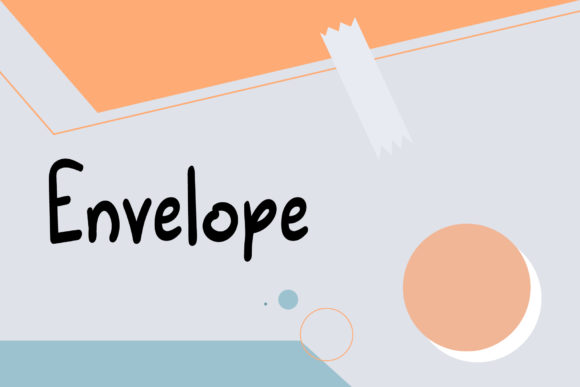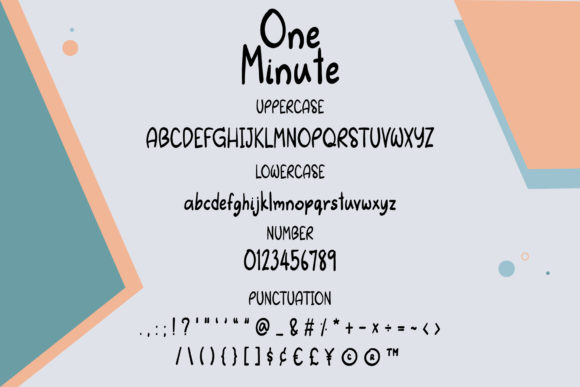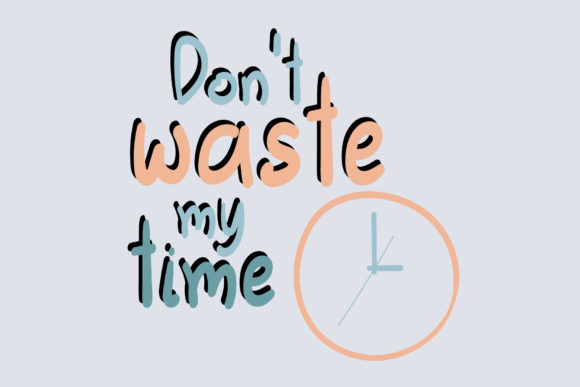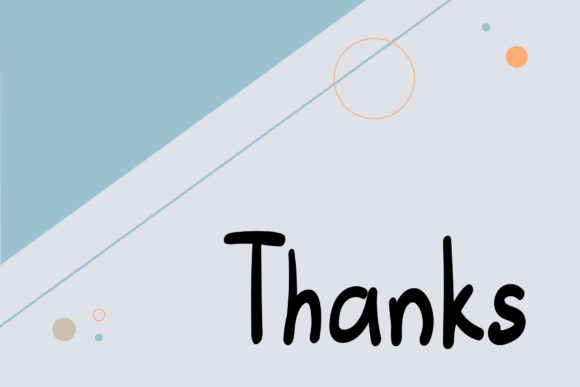
One Minute Font – Free Download
Introduction to One Minute Font
One Minute is a friendly handwritten font.
Key Features of One Minute Font
Why Choose One Minute Font?
One Minute Font offers exceptional quality and versatility, making it a valuable addition to your design toolkit. Whether you’re creating for personal projects or commercial use, One Minute Font delivers professional results.